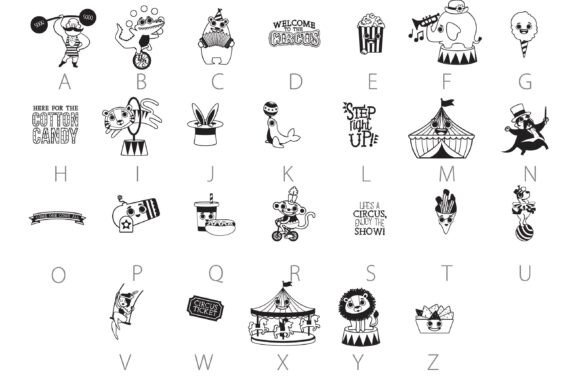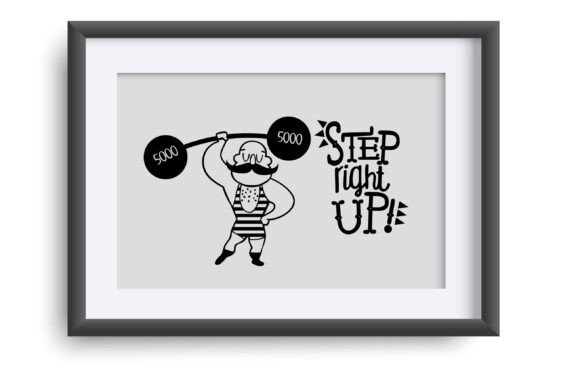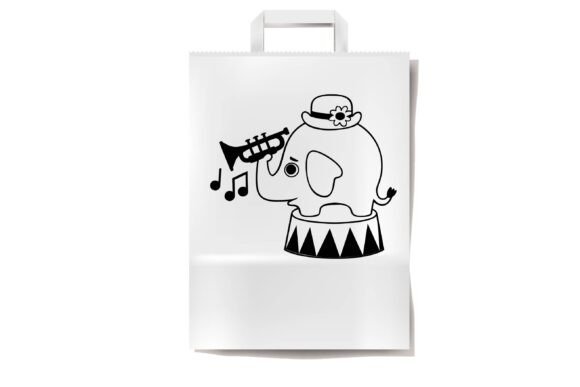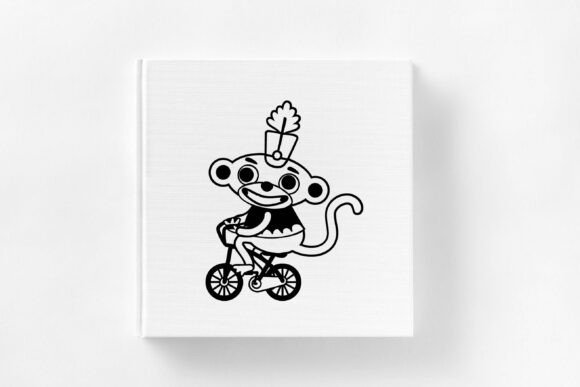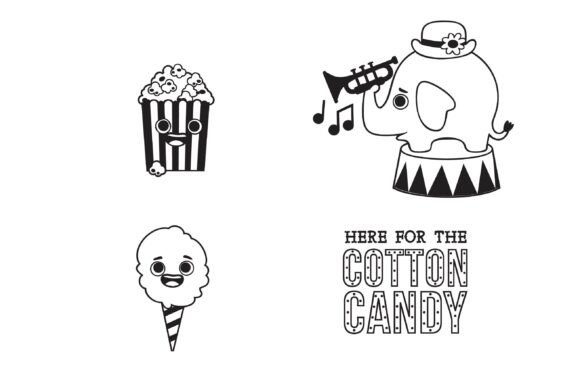
Introduction to Jolly Circus Font
Have you ever stared at a blank canvas, feeling stuck and unsure of where to start? You’ve got a creative project in mind, but the words just aren’t flowing. That’s when you remember the magic of dingbat fonts – a game-changing design resource that can elevate your work instantly. For designers, the Jolly Circus Font is a treasure trove of adorable circus characters and graphics that can add a touch of whimsy and fun to any project.
With the Jolly Circus Font, you can add a high-quality, transparent background to your design, making it easy to incorporate into any creative work. Whether you’re working on a children’s book, a marketing campaign, or a social media graphic, this font is sure to save you time and simplify your process. And the best part? It’s free to download, making it an invaluable resource for designers of all levels.
So why settle for a generic, cookie-cutter design when you can add a touch of personality with the Jolly Circus Font? This versatile font is a must-have for any designer looking to take their work to the next level.
Key Features of Jolly Circus Font
- Transparent background allows for seamless integration with various design elements
- Unique, whimsical design featuring a jolly circus theme
- Perfect for use in digital art, graphic design, and print media
- Includes 1 font style with a resolution of 300 DPI for high-quality printing
Honest Review: Jolly Circus Font
I recently had the opportunity to work with the Jolly Circus Font, and I must say it’s been a delight to incorporate into my creative project. The font’s high quality and versatility make it an excellent addition to any design resource.
Here are some aspects that truly shine about this font:
- ✨ Unique and playful design: The Jolly Circus Font’s aesthetic is perfect for projects that require a touch of whimsy and fun.
- ✨ High quality: The font is crisp and clear, making it suitable for both digital and print designs.
- ⚠️ Limited font sizes: The font may not be as effective at larger sizes, which can make it challenging to read.
- ⚠️ No transparent background: This can be a drawback for designers who require a font with a transparent background.
Overall, the Jolly Circus Font is a wonderful design resource that can add a touch of magic to any creative project. While it may have some limitations, its unique design and high quality make it a great choice for designers looking for a fun and playful font.
The Jolly Circus Font is a versatile design resource that can be used in a variety of creative projects. Some common use cases include creating invitations, posters, and social media graphics. The font’s high-quality and transparent background make it perfect for use in digital designs.
To get the most out of the Jolly Circus Font, be sure to experiment with different font sizes, colors, and combinations. You can also use the font in conjunction with other design elements, such as graphics and images, to create a unique and eye-catching design.
Alternatives to Jolly Circus Font
Comic Sans MS is a classic font known for its playful and approachable style. It’s perfect for creative projects that require a casual, handwritten feel. Download it for free to add a touch of whimsy to your design. In comparison to Jolly Circus Font, Comic Sans MS has a more rounded and cursive look, making it ideal for projects that require a softer, more childlike tone.
Pacifico is a beautiful, high-quality font with a transparent background that’s perfect for designs that need a clean and modern look. Its elegant and sophisticated style makes it suitable for creative projects that require a touch of class. Compared to Jolly Circus Font, Pacifico has a more refined and polished appearance, making it ideal for projects that need to convey a sense of luxury and sophistication.